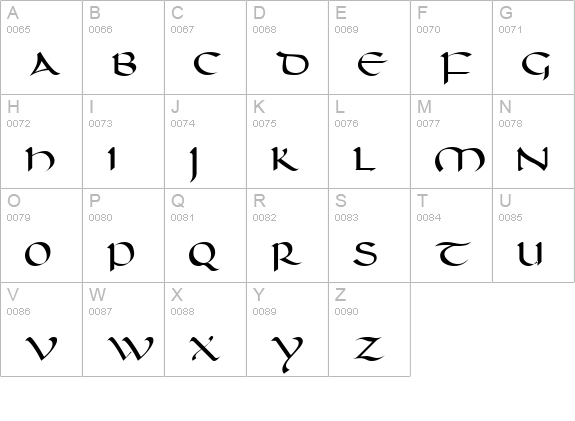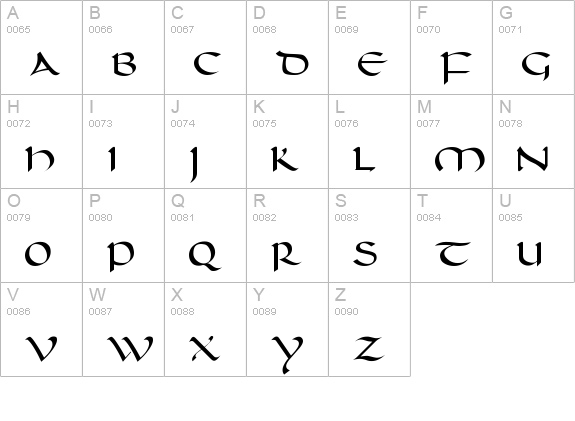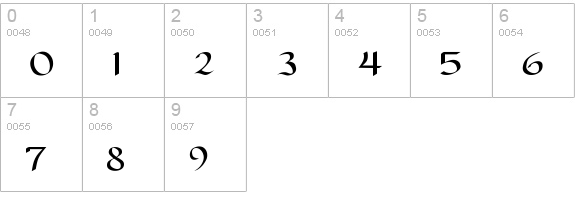
DorovarFLF-Carolus Font Details
DorovarFLF-Carolus is a beautifully crafted serif font that exudes elegance and sophistication. This font features intricate details and clean lines that make it perfect for a wide range of design projects. With its classic style and timeless appeal, DorovarFLF-Carolus adds a touch of refinement to any text or headline. What sets DorovarFLF-Carolus apart is not only its stunning design, but also the fact that it is completely free to download. That's right, you can access this exquisite font at no cost on FontsMarket.com. Whether you're working on a branding project, editorial layout, or any other creative endeavor, DorovarFLF-Carolus is sure to elevate your designs and leave a lasting impression. Don't miss out on this rare opportunity to enhance your work with a premium font that won't cost you a penny. Download DorovarFLF-Carolus today and let your creativity soar!